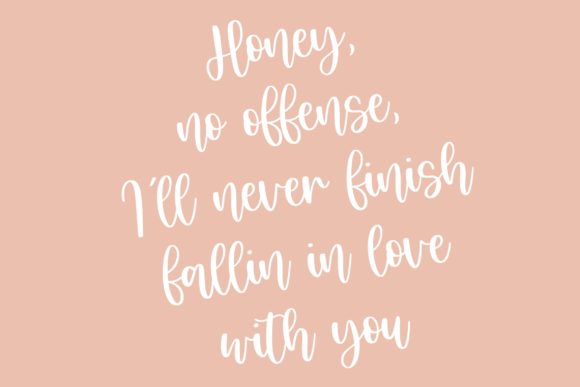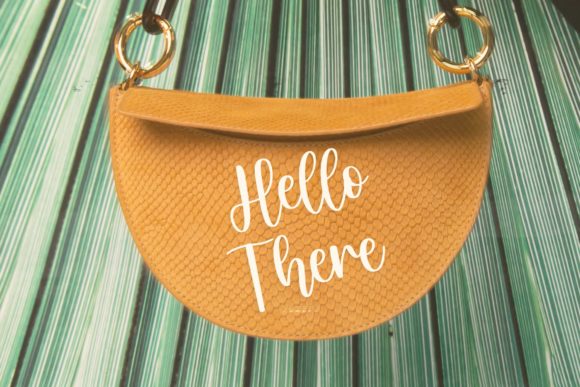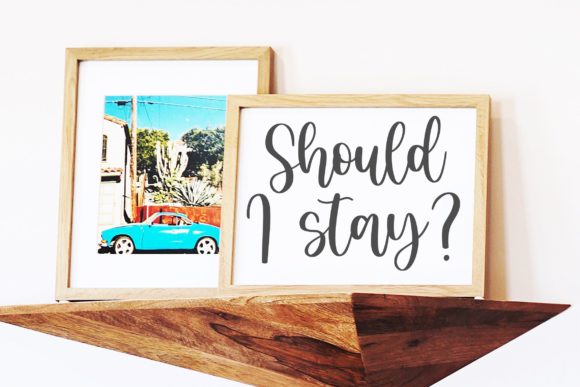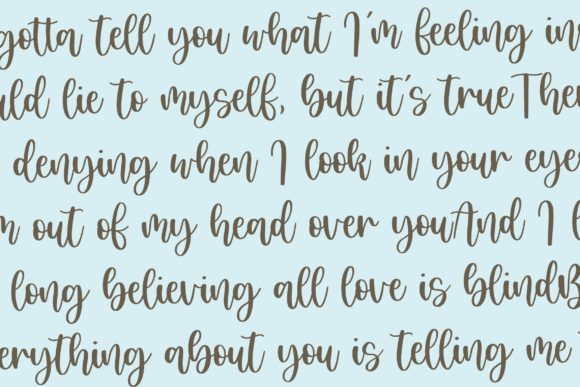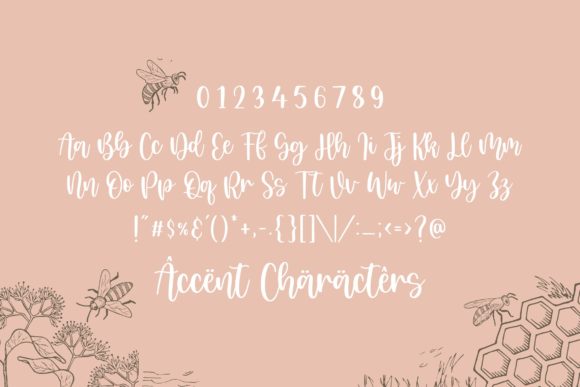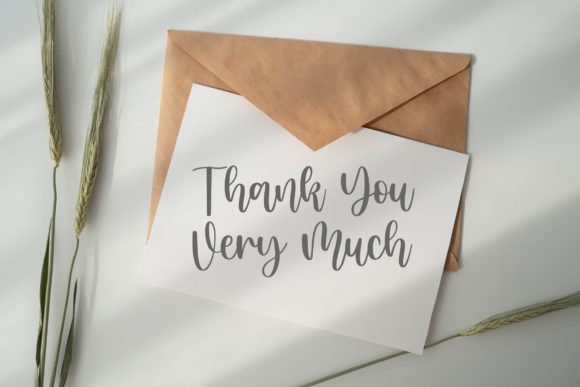
Honey Day Font
About Honey Day Font
Honey Day is a flowing, round lettered handwritten font, described by an elegant touch. Fall in love with its incredibly distinct and timeless style and use it to create spectacular designs!